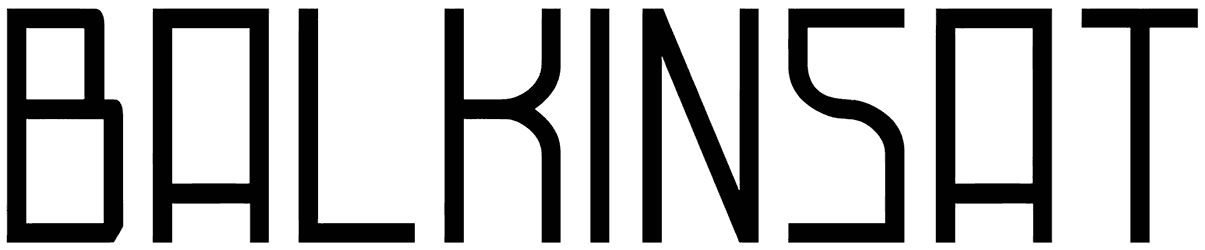
Balkinsat Font
Designed byIlham Andreawan
With Balkinsat font, you will create a truly unique look that will make your project appear sci-fi, even though this geometric font does not support lowercase letters. An ideal choice for invitations, quotes, space movie posters, logos, and greeting cards, so there is a versatile robotic font will help you obtain a captivating modern look in just a few minutes.